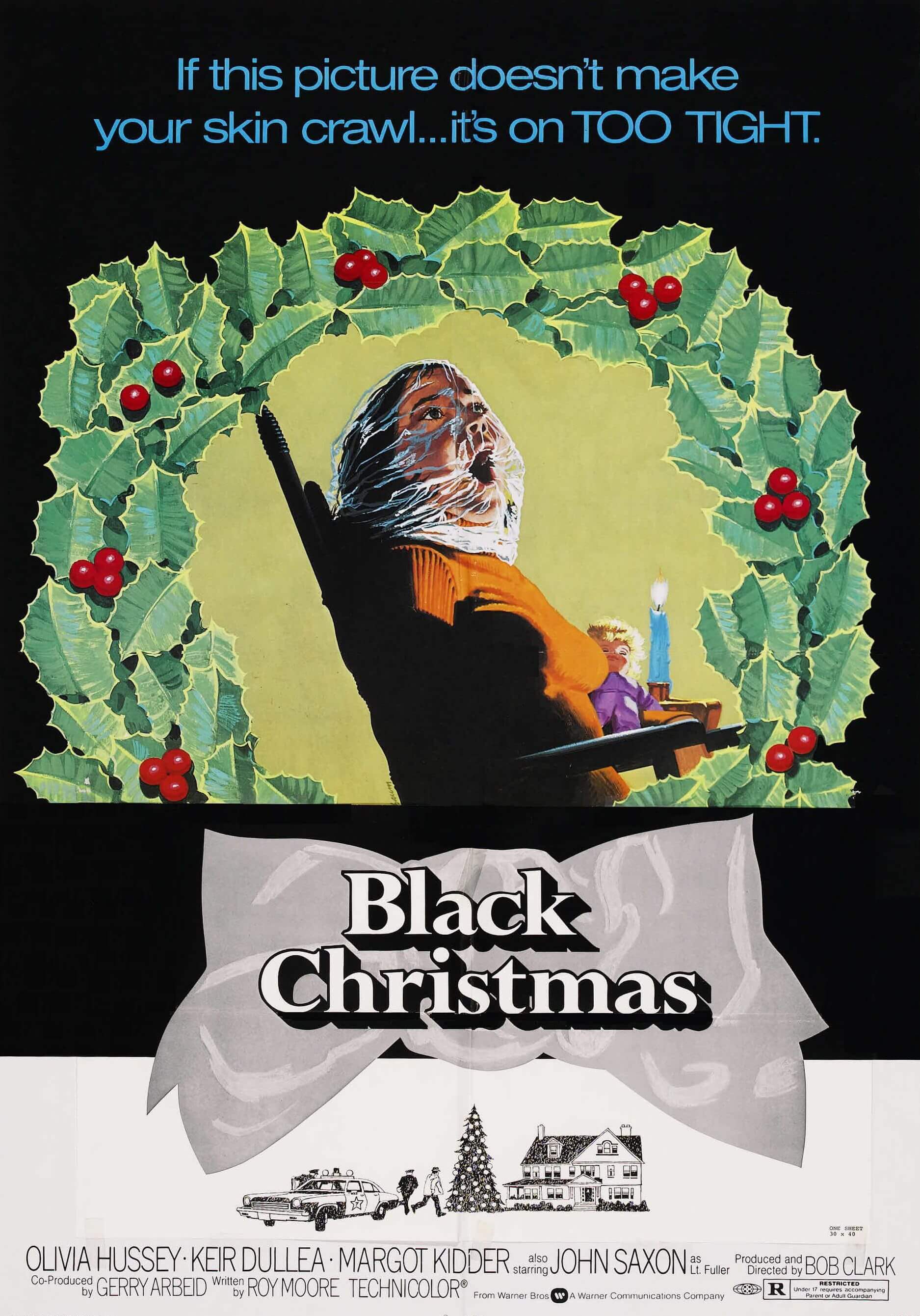
Black Christmas Font
Fonts in UseBlack Christmas is a horror film about a group of sorority sisters who are stalked and murdered by an unknown assailant during the Christmas holiday.
The movie's title is presented in a darkened version of Perpetua Bold font. You can learn more about this font here. While the tagline uses Helvetica or a similar typeface.